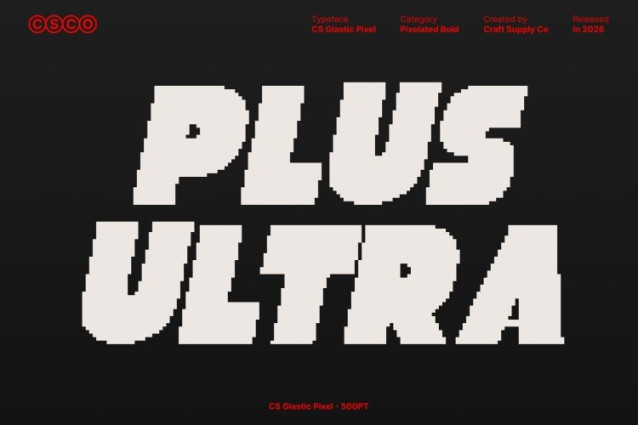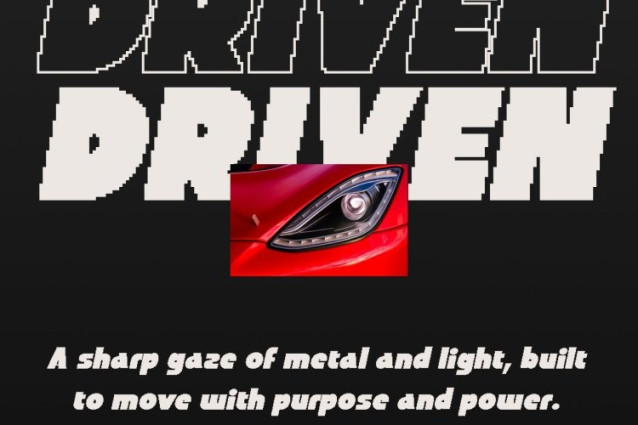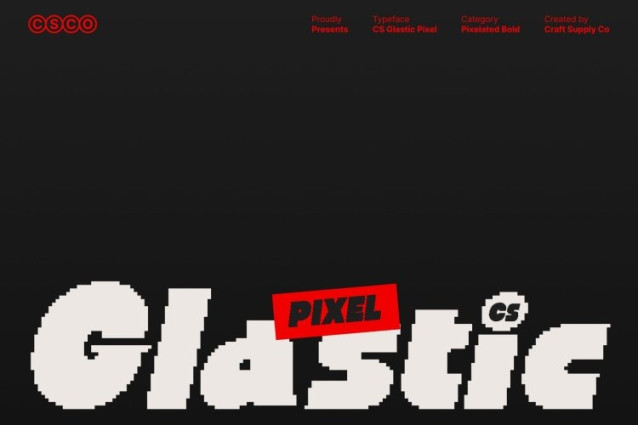
CS Glastic Pixel Font
CS Glastic Pixel Font This is a modern sans serif display font built to deliver bold visual impact through clean, pixel-refined geometry. Strong shapes and confident proportions create an immediate presence that feels modern, expressive, and digitally savvy. Its precise construction ensures clarity while maintaining a playful, contemporary attitude.
Clean Pixel Geometry with Bold Personality
Defined by sharp geometric forms and solid structure, this font offers a sleek, professional appearance. Balanced spacing and bold weight enhance readability and authority, while the pixel alignment gives every stroke a subtle modern edge. This strong geometric foundation makes it ideal for structured, high-impact designs.
Funky Pixel Touch with Unique Energy
What sets this font apart is its subtle funky character within the clean geometric framework. Playful proportions and distinctive details add energy and personality, creating a typeface that’s expressive, youthful, and visually engaging without sacrificing clarity.
Perfect for Bold and Expressive Projects
Designed for standout applications, this font excels in branding, posters, logos, packaging, and promotional materials that demand attention. Its modern geometric style with a funky digital twist makes it perfect for creative brands, entertainment visuals, fashion campaigns, and contemporary design projects.